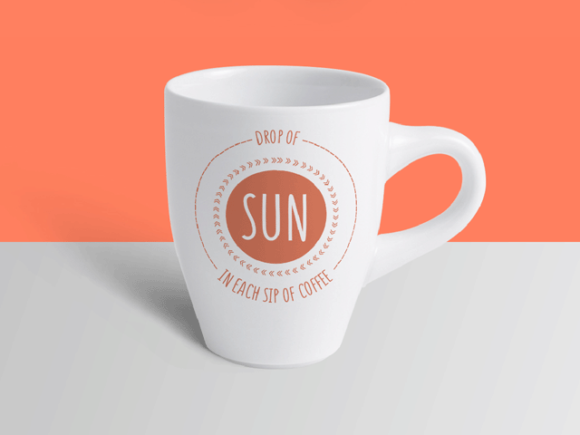
Free SUNN A set of 3 hand-drawn fonts
Featuring the mouth-watering free sunn a set of 3 hand-drawn fonts. Go give some love to Freebies Bug for creating this top-notch typeface. Showcase your designs like a graphic design pro by adding a new touch with this cool font.